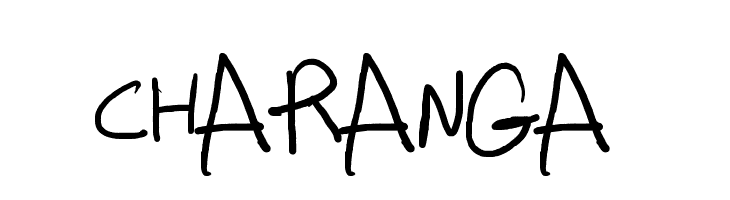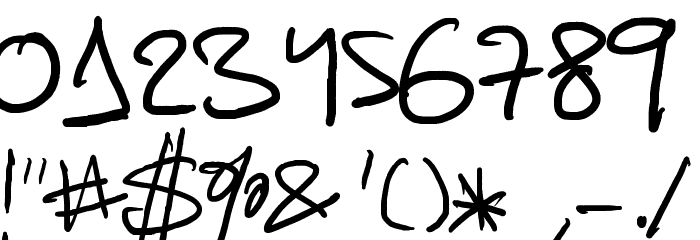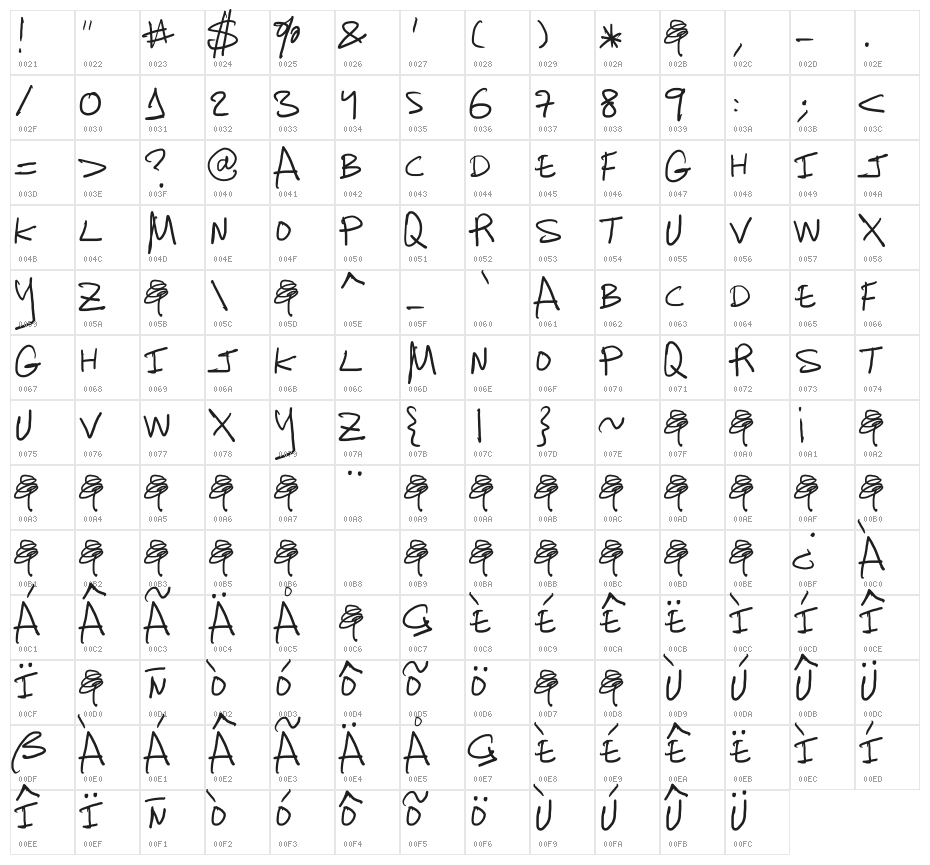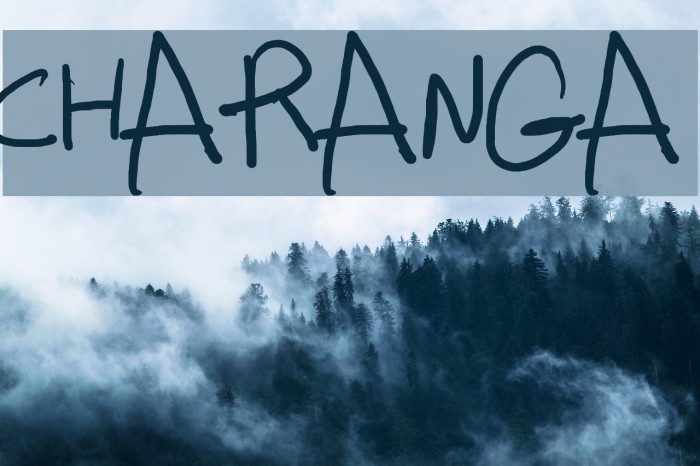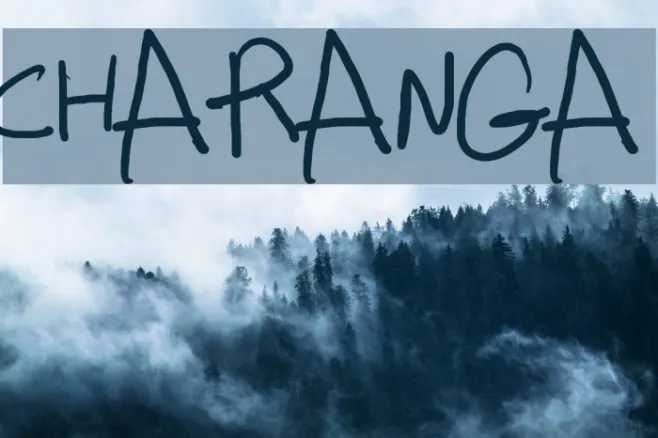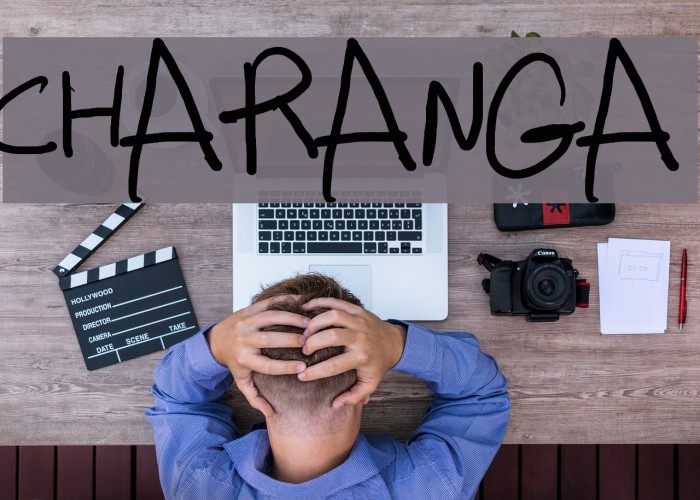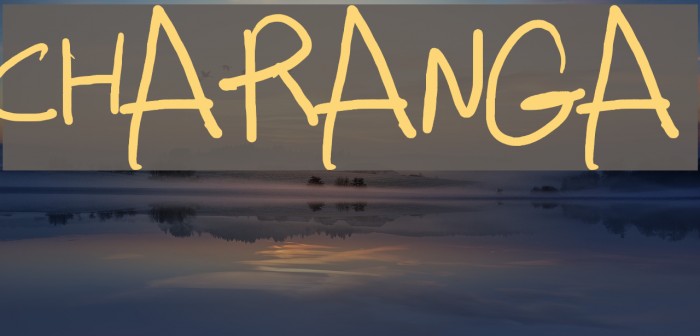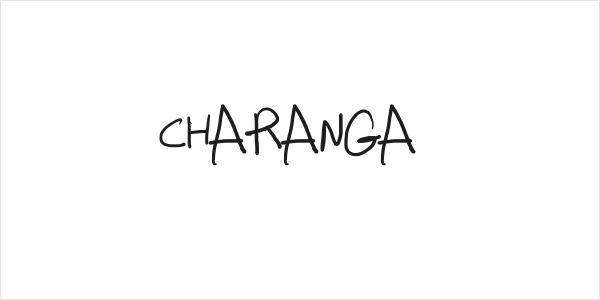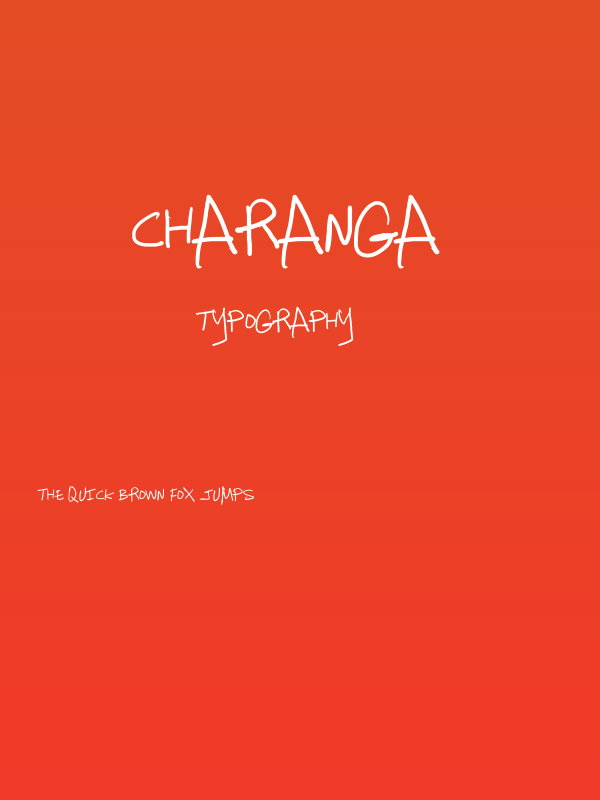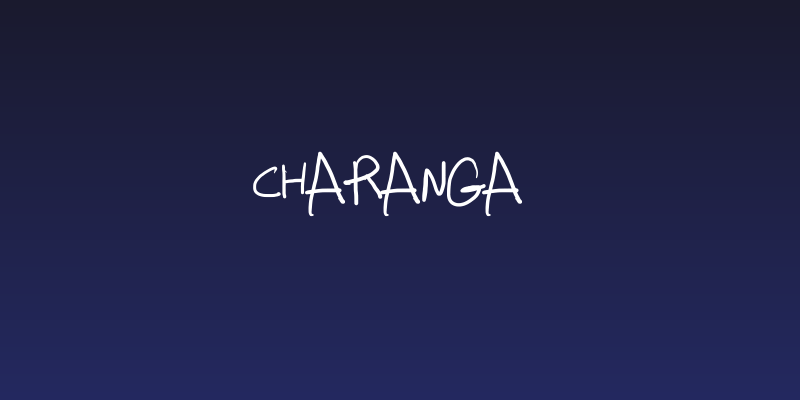
charanga Font
charanga Description
This font exudes a lively and dynamic handwritten style, characterized by its playful and informal appearance. The letters are slightly slanted, giving a sense of movement and energy. Each character is crafted with a casual flair, featuring uneven strokes and varying thicknesses that mimic the natural flow of handwriting. The uppercase and lowercase letters maintain a consistent style, while the numerals and special characters integrate seamlessly, enhancing the font's cohesive look. This font is perfect for projects that require a personal touch or a creative, informal vibe.
| Use Case | Headlines, Logos, Informal text |
| Proposed Projects | Ideal for greeting cards, personal blogs, children's books, and creative branding. |